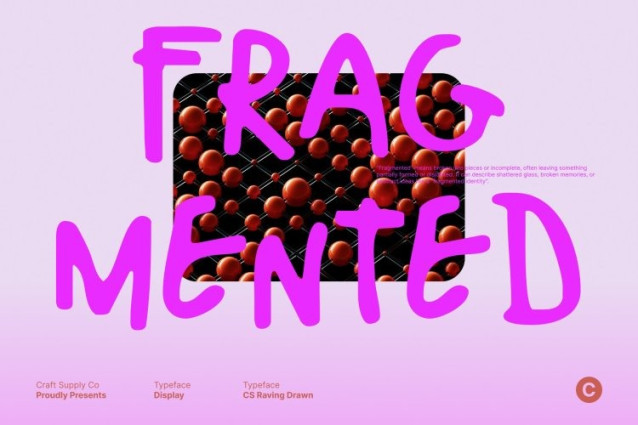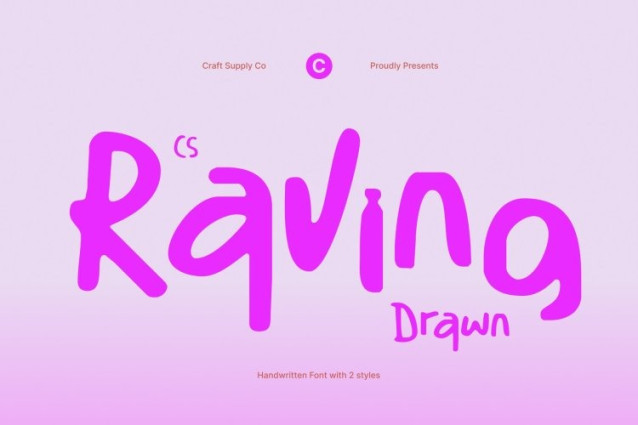
CS Raving Drawn Font
CS Raving Drawn Font This is a messy handwritten display font built from irregular, freely scribbled strokes. Its bold, gritty appearance captures the spontaneity of real hand-drawn lettering, giving every character a raw and lively personality. The imperfect lines create an authentic, expressive feel that instantly adds character to any design.
Marker-Inspired Forms with Playful Attitude
Inspired by energetic marker writing, this font blends bold thickness with spontaneous movement. Uneven strokes and playful letterforms make the text feel alive and dynamic, delivering a casual yet confident presence. The drawn texture enhances its handmade charm, making each word feel personal and visually engaging.
Versatile for Creative and Fun Designs
Despite its chaotic charm, this font remains flexible and readable across a wide range of applications. It works beautifully in posters, social media graphics, packaging, children’s projects, and creative branding anywhere bold personality and visual impact are needed.
Expressive, Natural, and Full of Character
With its freeform structure and hand-drawn energy, this font celebrates imperfection and creativity. Ideal for playful, informal, and imaginative projects, this font brings a human touch that feels energetic, authentic, and unforgettable.